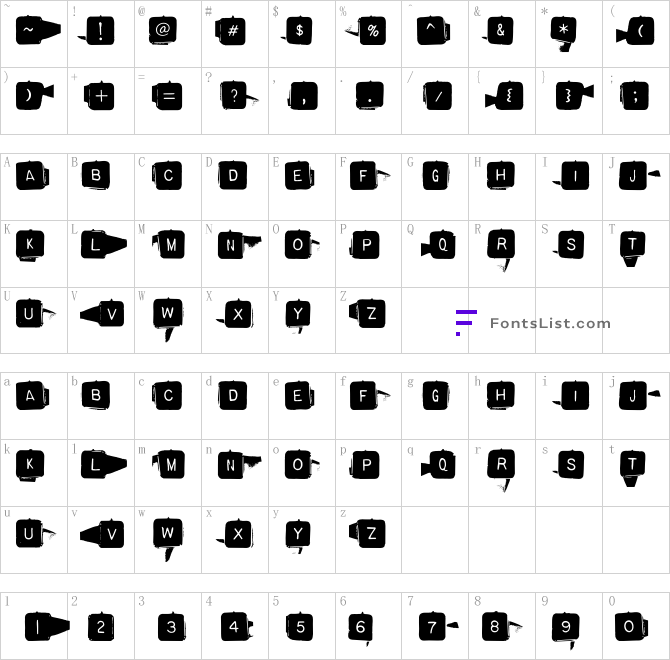
- Font Name:Backspacer
BackspacerSquare.ttf is a very beautiful artistic font, BackspacerSquare.ttf is widely used in the design and printing of various books and pictures,BackspacerSquare.ttf has a strong visual impact,BackspacerSquare.ttf is a commonly used font in newspapers, magazines and books, and is used in posters, e-commerce Poster design, store design, logo design, font design and other fields.BackspacerSquare.